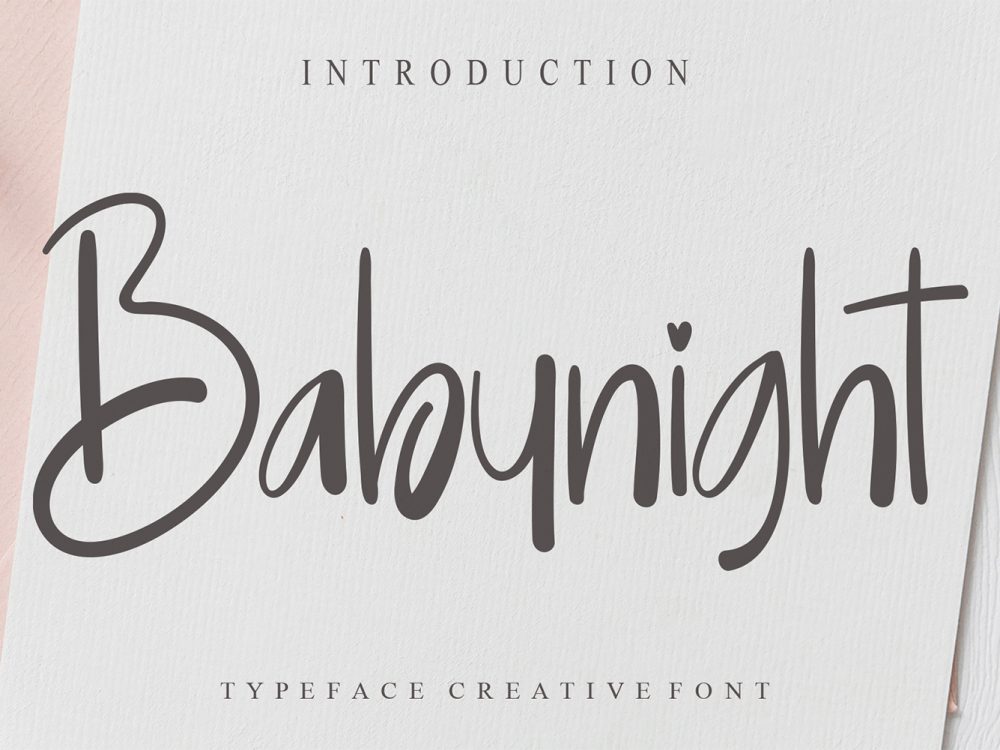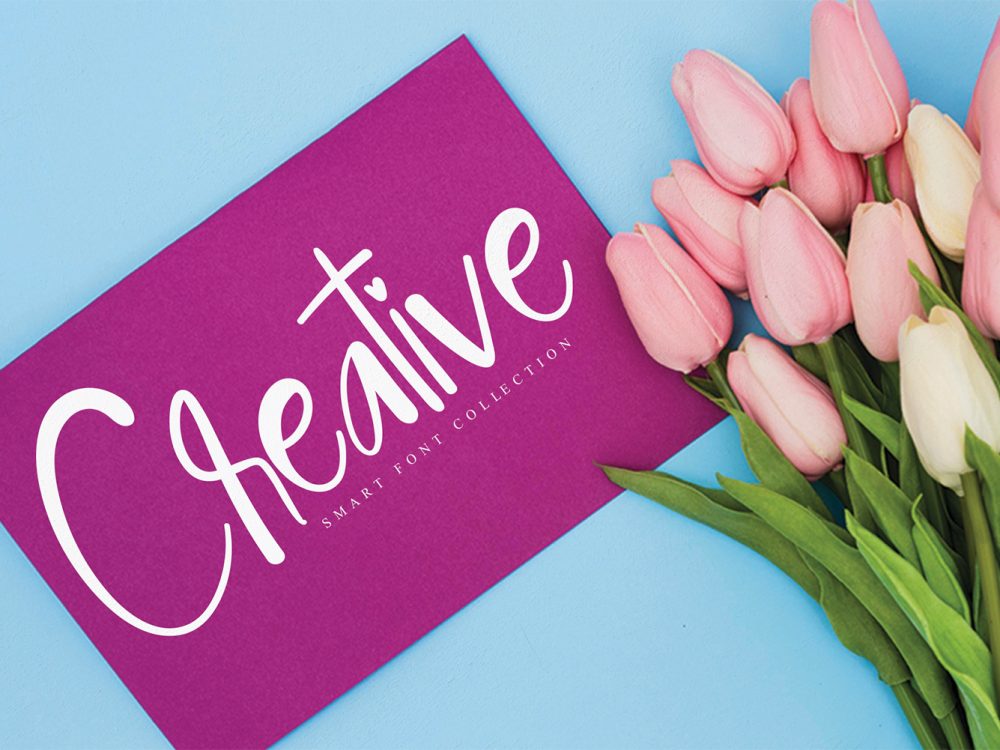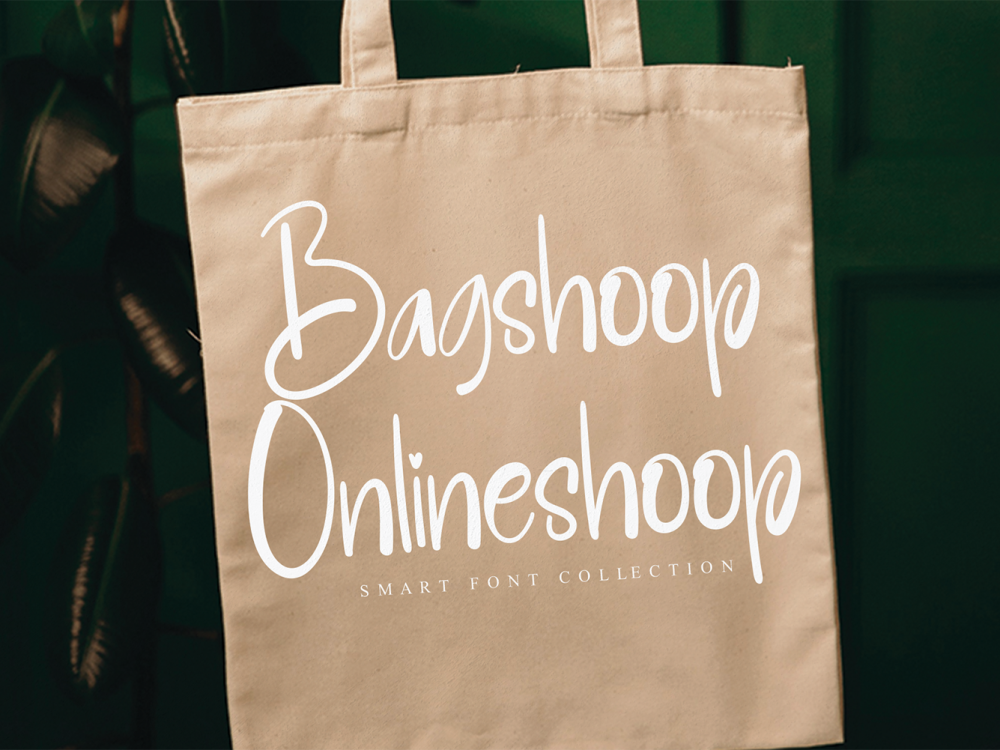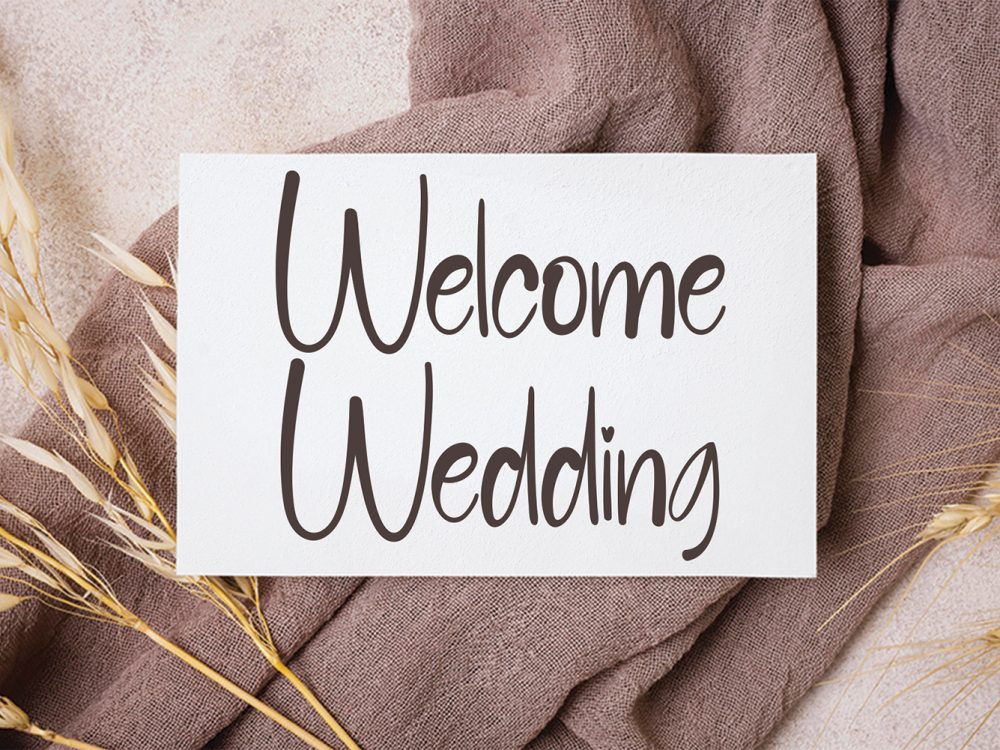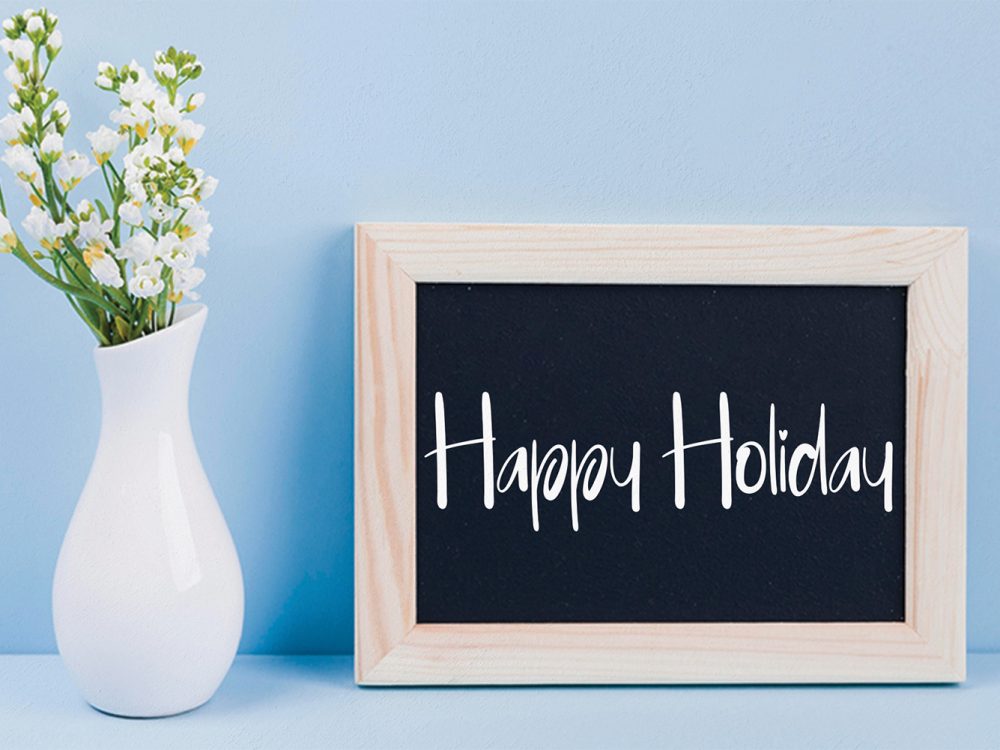
Babynight Free Font
Introducing Babynight Free Font, a refined script font radiating elegance and modern vibes, while drawing inspiration from the timeless charm of classic calligraphy. With a harmonious balance between thickness and delicacy, this font boasts impeccable form and variation. Its design is a testament to its capacity to elevate the allure of your projects, adding a touch of beauty that resonates effortlessly. If you like it don’t forget to check out the full version.